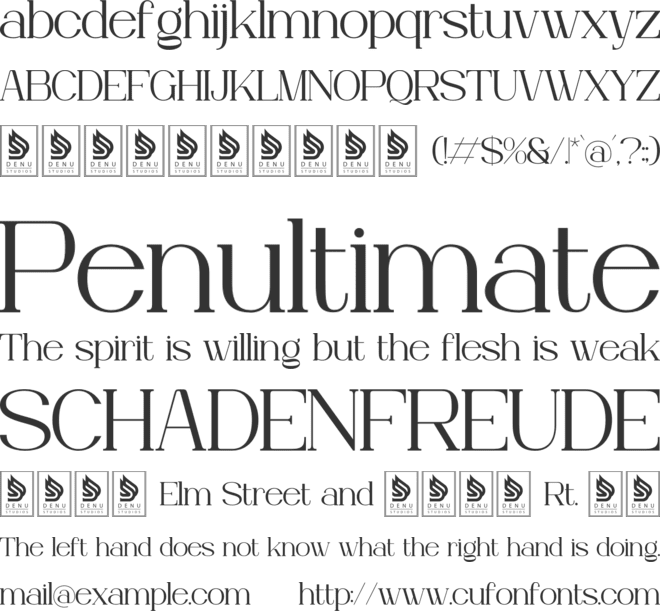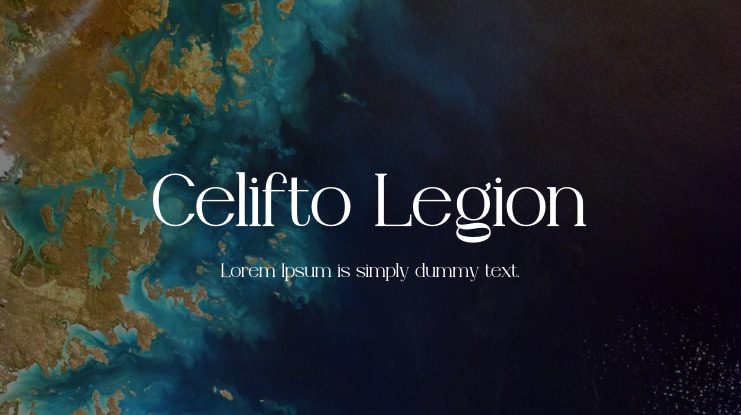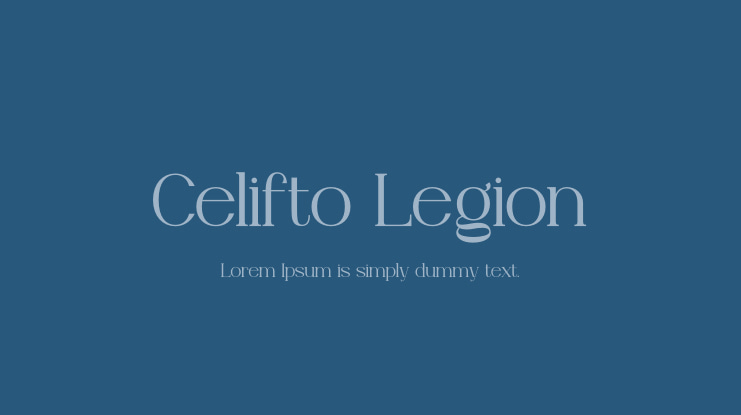
Celifto Legion | Modern And Elegant Serif product packaging, mugs, quotes, posters, shopping bags, t-shirts, book covers, name card, invitation cards, greeting cards, label, photography, watermark, special events, and all your other lovely projects that need a Modern And Elegant Serif taste.